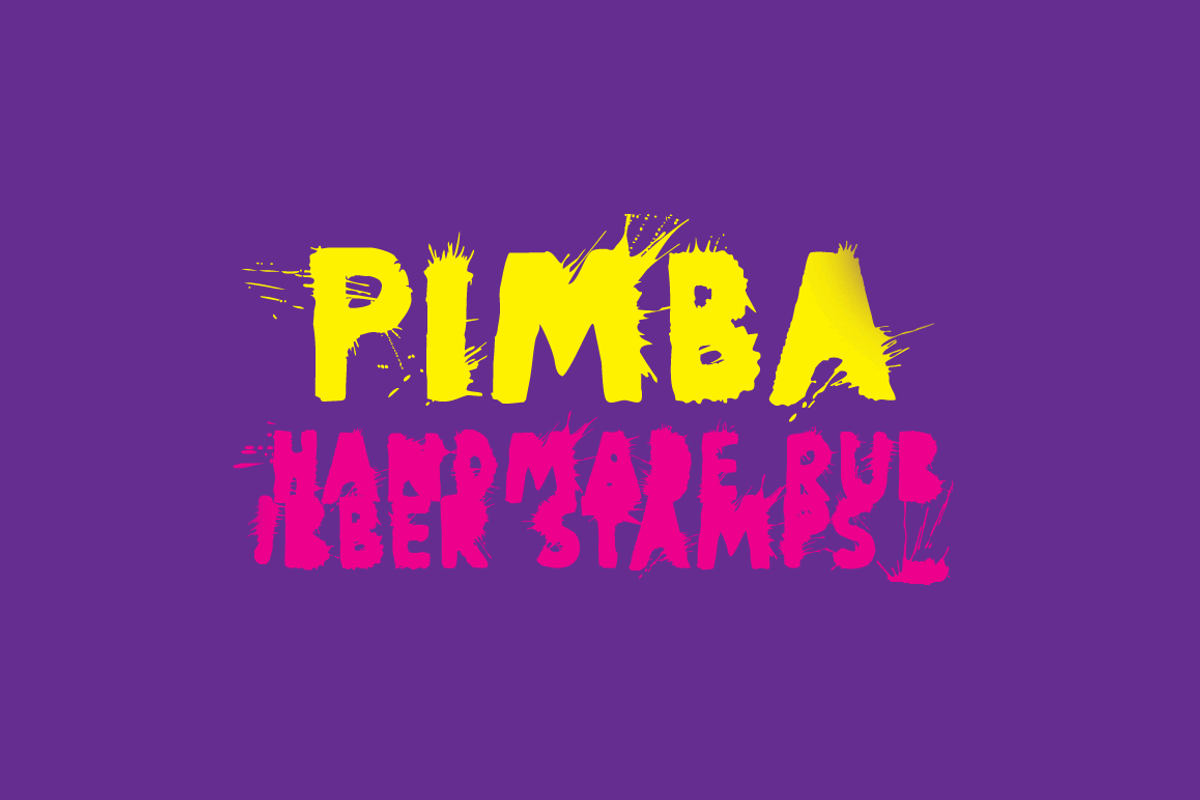
Digital font Pimba
Digital font Pimba by BRtype is a font selected for branding, posters, packaging, typography.
- All characters were designed from handmade rubber stamps and printed with much ink, creating this intense splish-splash effect of letters.
Why Digital font Pimba is worth a look
Digital font Pimba by BRtype fits naturally into Branding, posters, packaging, typography.